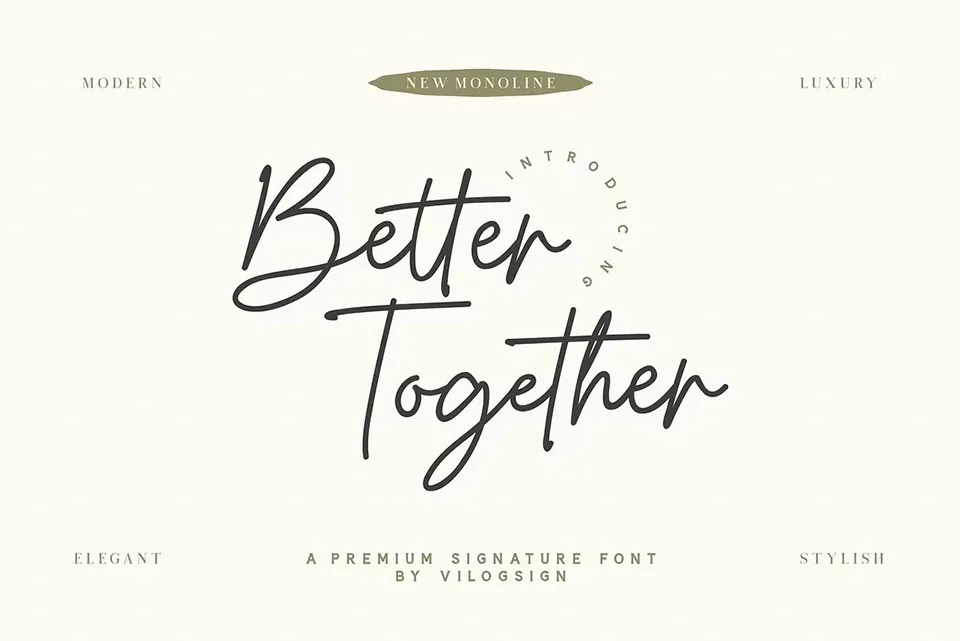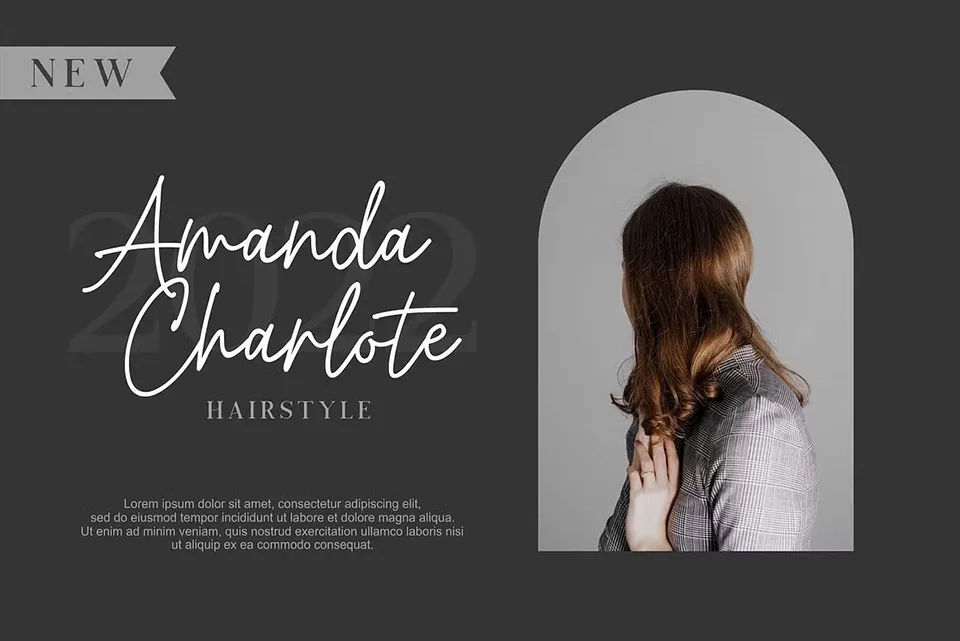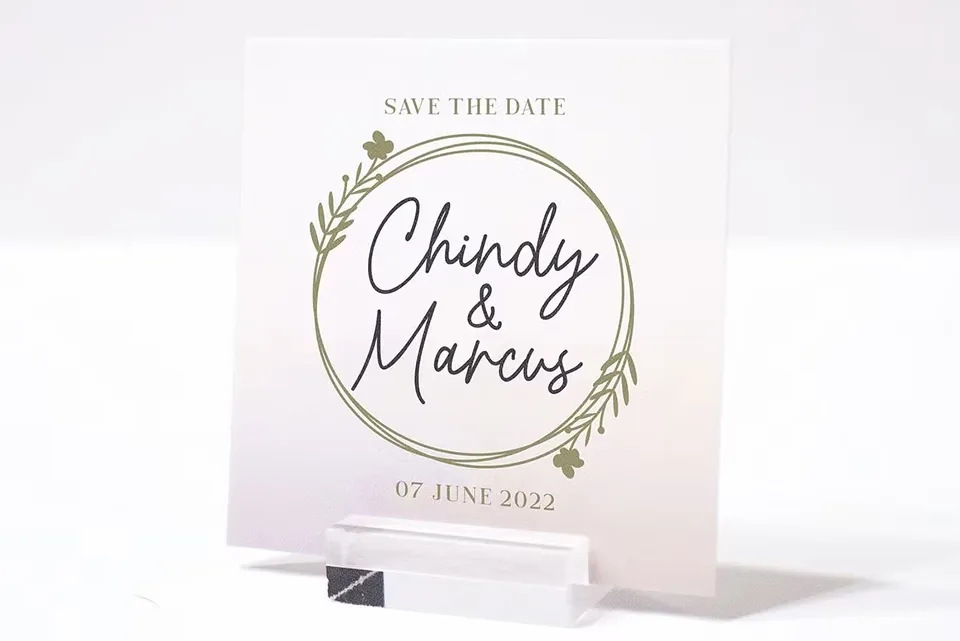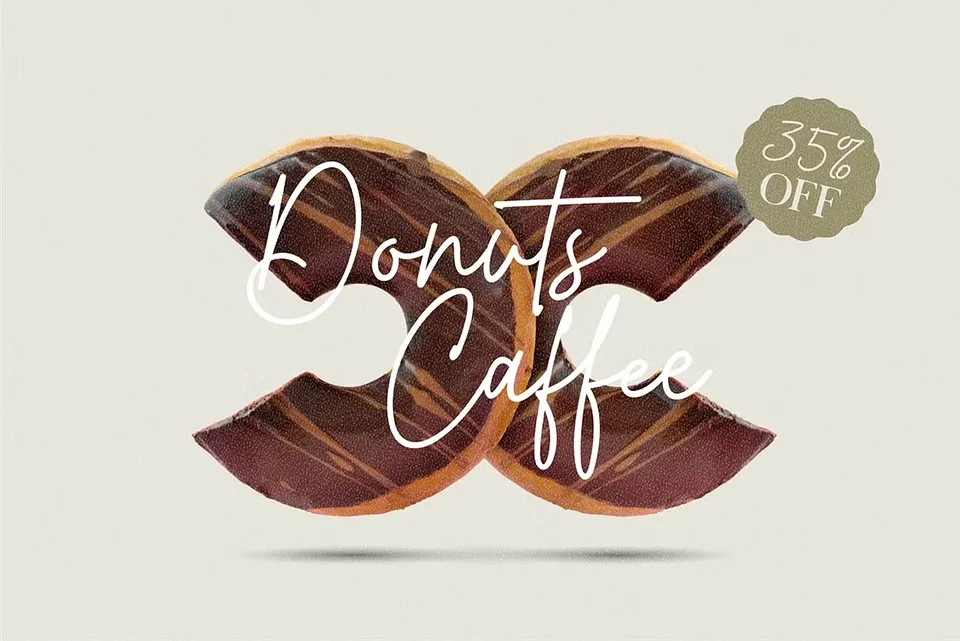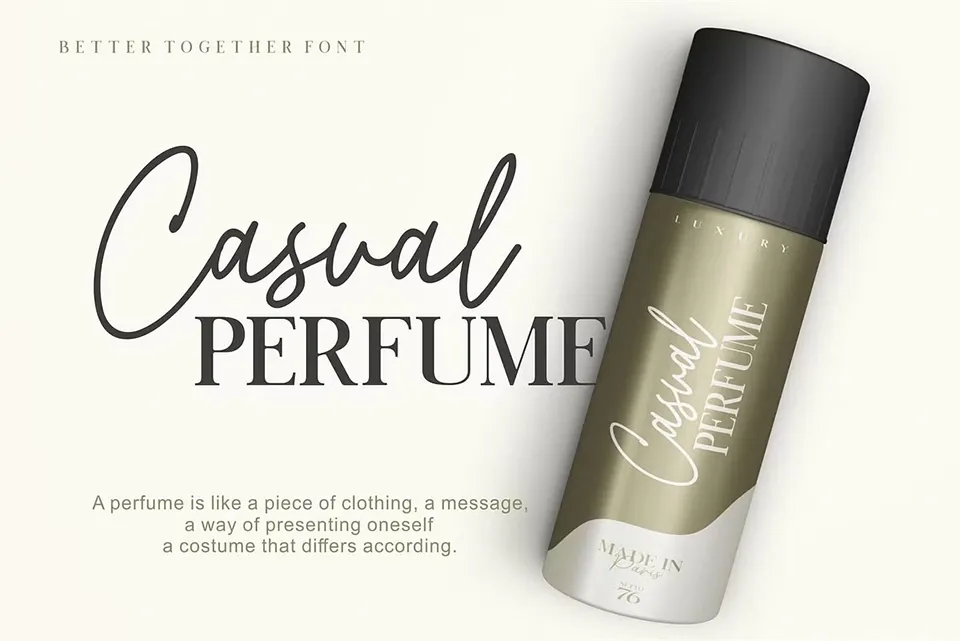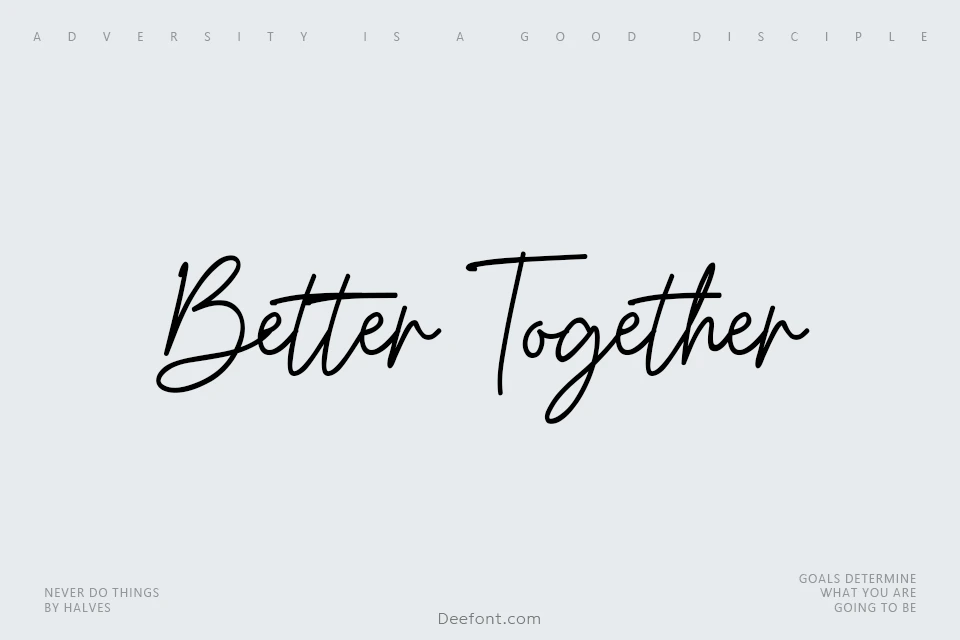
Better Together Handwritten Font
Better Together Handwritten Font is a sweet handwritten script font designed by Vilogsign. Perfectly crafted for branding, invitations, labels, logos, magazines, books, greeting and wedding cards, packaging, fashion, makeup, stationery, novels, and advertising, this font features stylish alternatives, ligatures, and multilingual support to elevate your creative work.